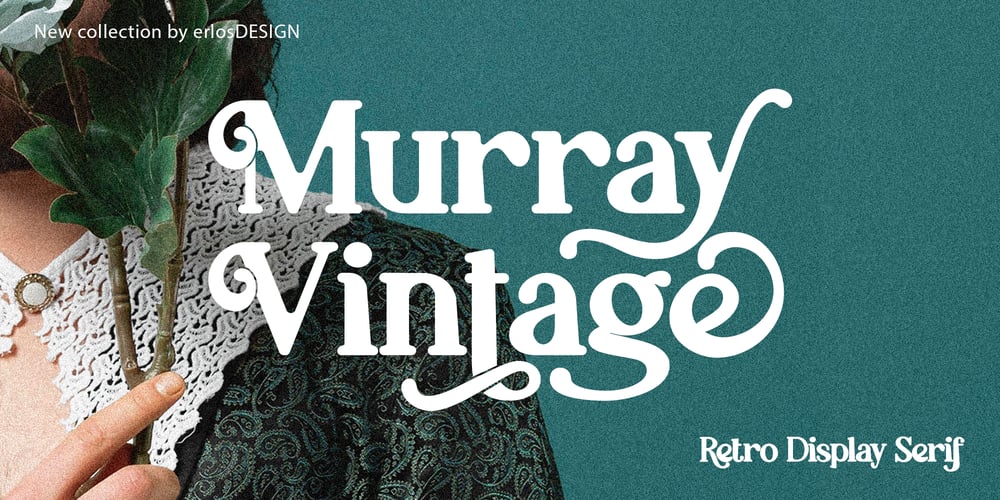
Murray Vintage Font Family was designed by Erlangga Suherman and published by ErlosDesign. Murray Vintage contains 1 styles and family package options. Murray Vintage – Display Serif Font by erlosDESIGNMurray Vintage is a stylish and fun display font with a touch of vintage style. Use it for any design project that require a charming appearance. Made with many alternative characters and ligatures. It is perfect for book covers, social media post, logos, business card, quotes and so much more. This font is PUA encoded which means you can access all of the amazing glyphs and ligatures with ease!